Google Fonts are great because they’re, well, free. But if you’ve ever searched through the 1,900+ options to find the perfect one, you know it can feel like finding a needle in a haystack.
I’ve rounded up 11 of my current favorite handwritten Google Fonts that are fresh, fun, and perfect for your next springtime project. Each font is available free on Google Fonts, so you can use them for your next creative project, social post, lifestyle brand, or website without spending a thing.
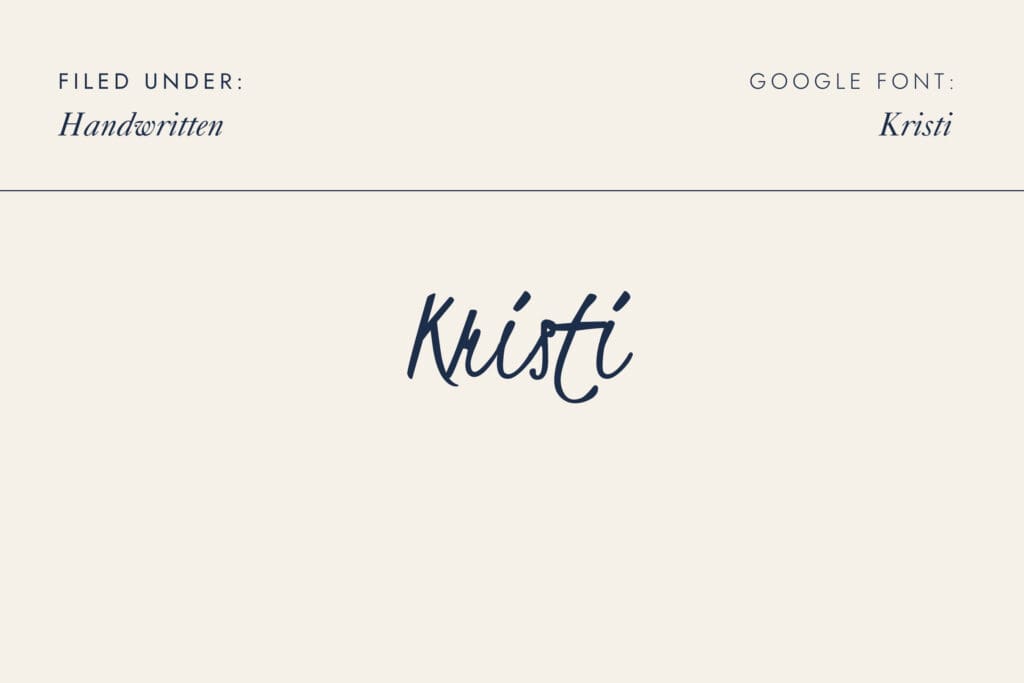
Kristi | Casual | Loopy
A loose, loopy handwritten Google Font that mimics genuine pen-to-paper writing. Kristi’s organic letterforms and relaxed rhythm make it a go-to for personal branding, greeting card designs, and anything that needs a spontaneous, handcrafted feel.
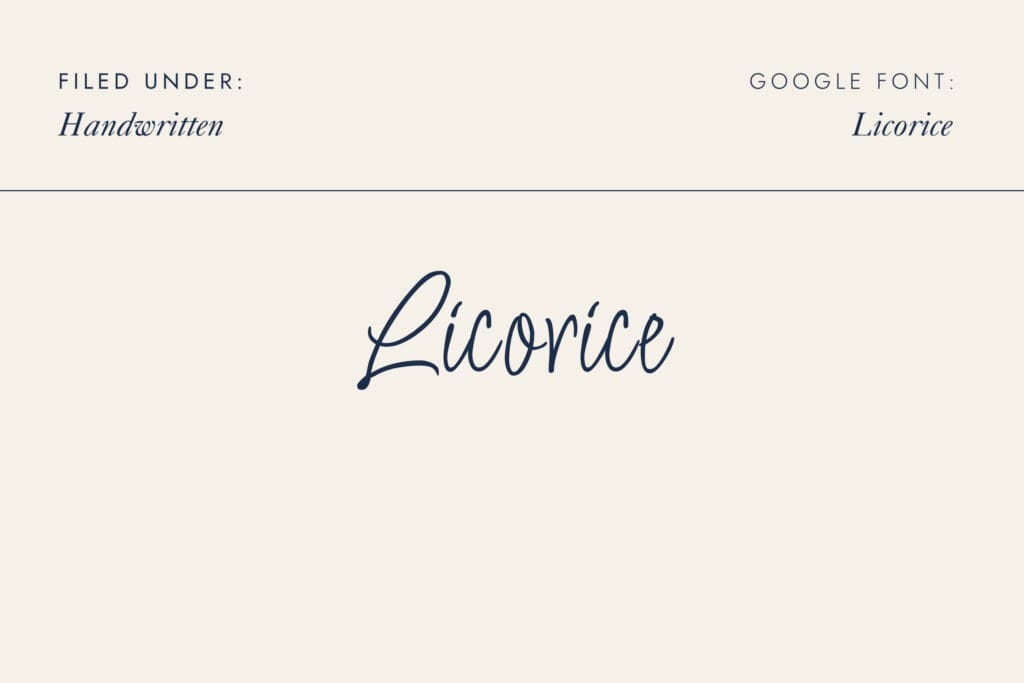
Licorice | Elegant | Narrow
Licorice is a tall, elegant handwritten Google Font with a confident, slightly formal energy. Its compressed letterforms and smooth strokes work beautifully for wedding invitations, boutique logos, and editorial headers.
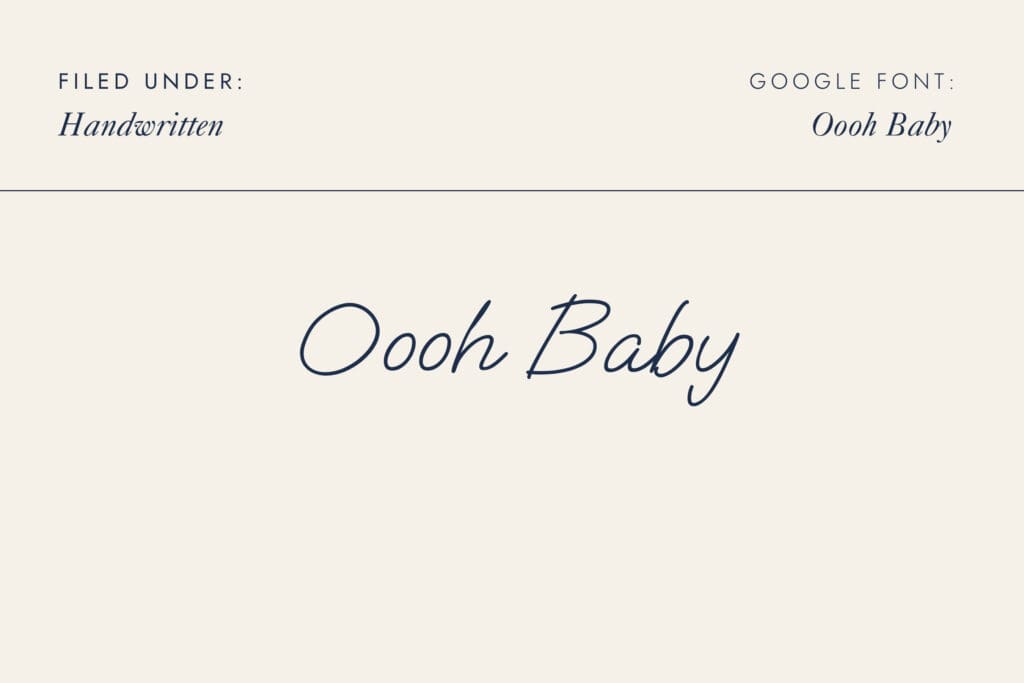
Oooh Baby | Playful | Flowing
Oooh Baby is a flowing, playful handwritten Google Font with a sweet, rounded character. Its bouncy baseline and cheerful energy make it ideal for lifestyle brands, children’s content, and social media graphics.
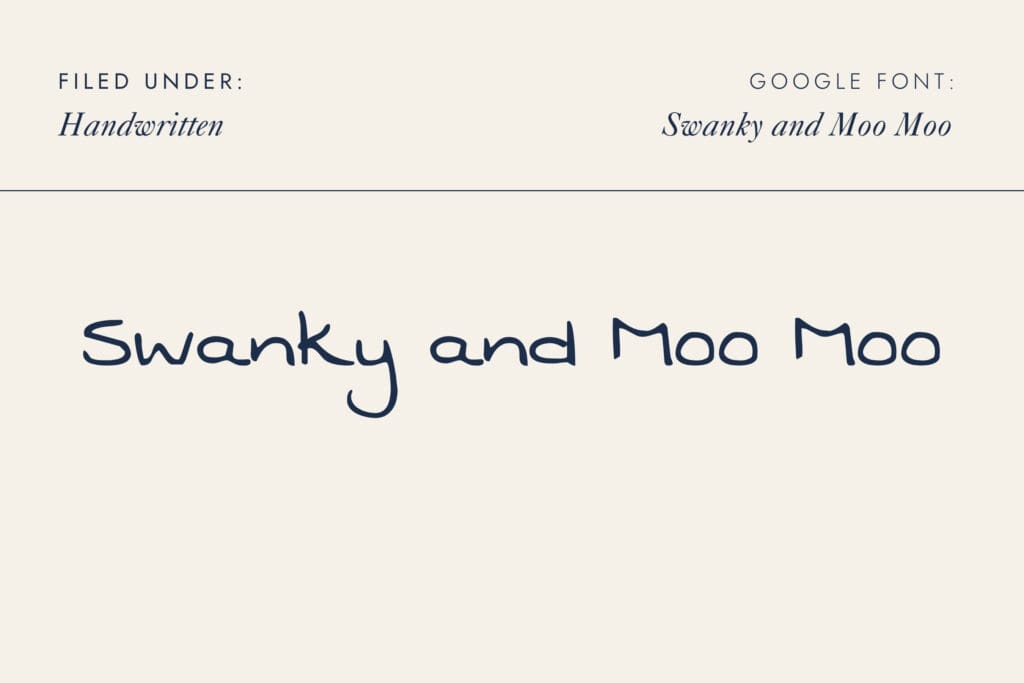
Swanky and Moo Moo | Retro | Bold
With its chunky strokes and retro personality, Swanky and Moo Moo is a bold handwritten Google Font that commands attention. Great for fun branding, product packaging, or any design that needs a vintage, hand-lettered feel with plenty of character.
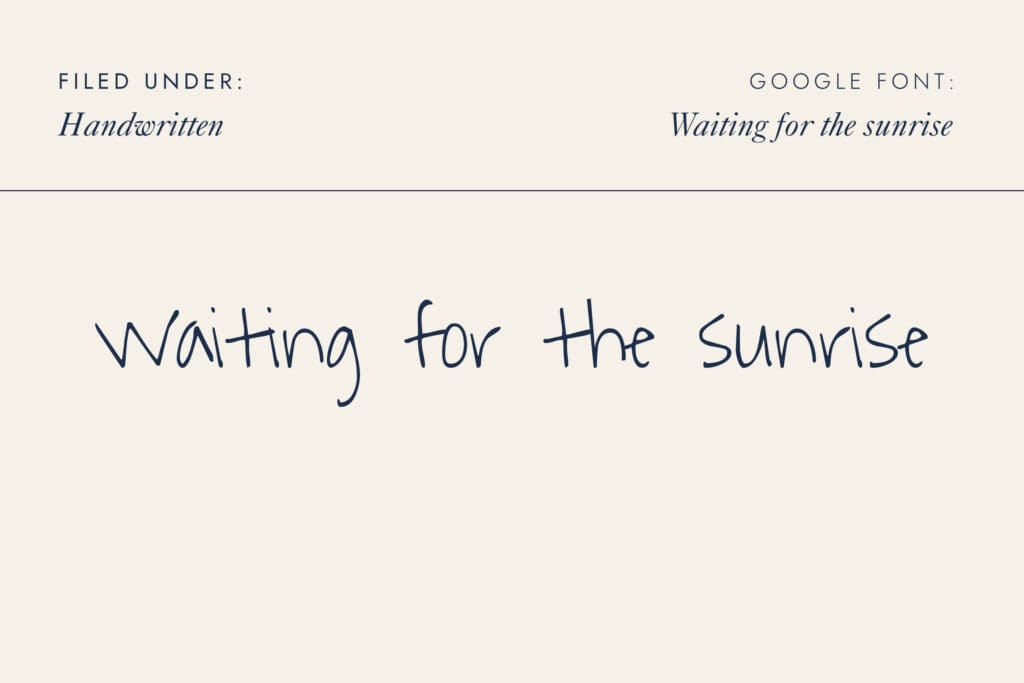
Waiting for the Sunrise | Airy | Romantic
Waiting for the Sunrise is a delicate, airy handwritten Google Font that feels like a note written by morning light. Its thin strokes and gentle slant make it perfect for romantic quotes, watercolor-style branding, and dreamy editorial designs.
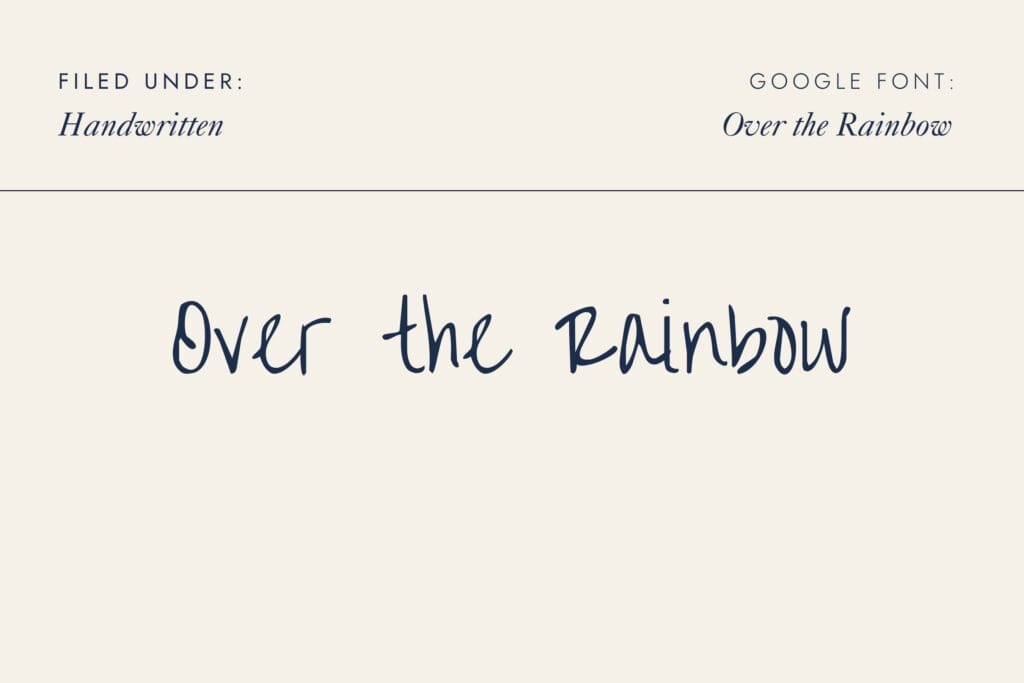
Over the Rainbow | Whimsical | Round
Over the Rainbow is a whimsical, round handwritten Google Font with a warm, storybook quality. Its open letterforms and friendly rhythm are a natural fit for children’s brands, illustrated content, and any design that wants to feel imaginative and inviting.
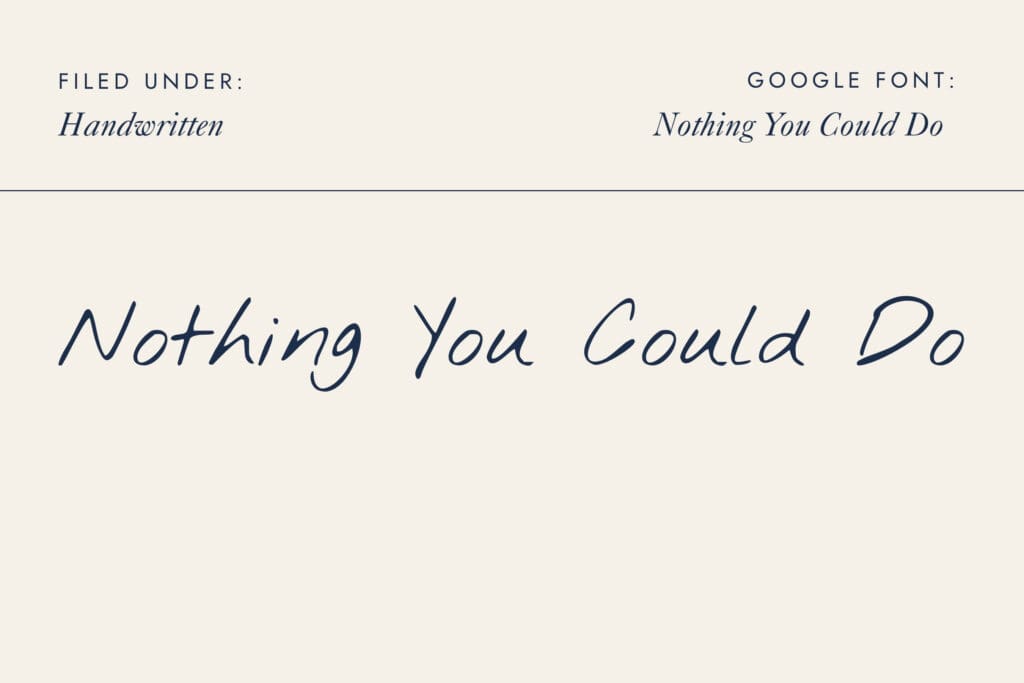
Nothing you Could Do | Tall | Casual
Nothing You Could Do is a tall, casual handwritten Google Font that strikes a nice balance between legibility and personality. Its slightly angular letterforms give it an artsy, journaling quality that pairs well with editorial layouts and creative portfolios.
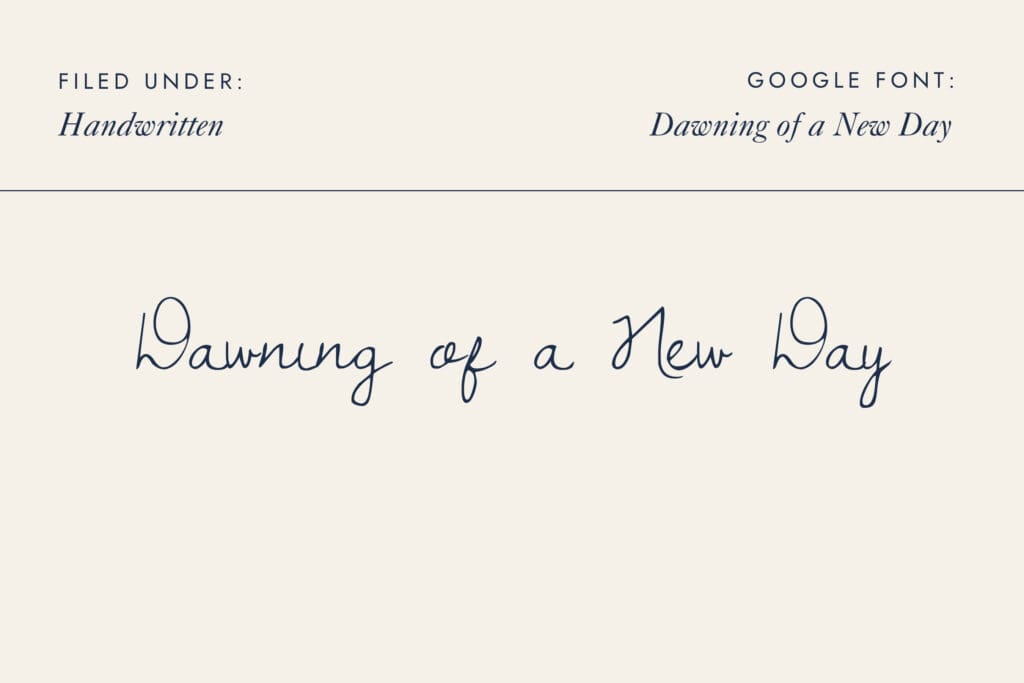
Dawning of a New Day | Refined | Flowing
Dawning of a New Day is a refined, flowing handwritten Google Font with a gentle, pen-like quality. It feels unhurried and thoughtful, making it a strong choice for wellness brands, journal aesthetics, and designs that want to feel personal without being too casual.
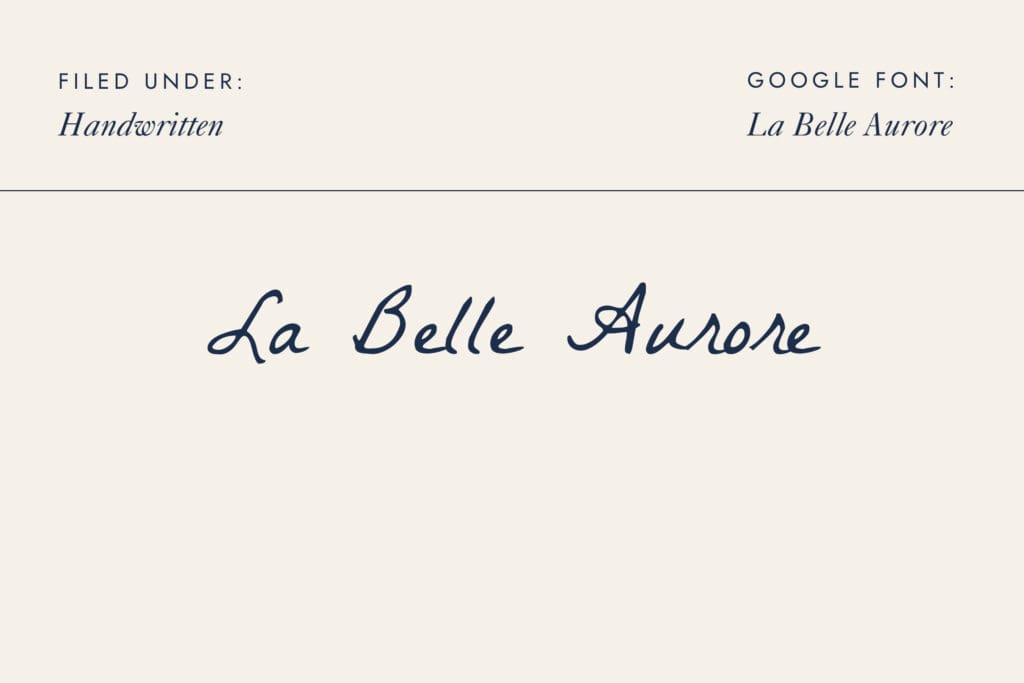
La Belle Aurore | Classic | Script
La Belle Aurore is a classic, slightly formal handwritten Google Font with old-world charm. Its calligraphic rhythm and vintage feel make it a natural fit for wedding stationery, French-inspired branding, and luxury editorial design.
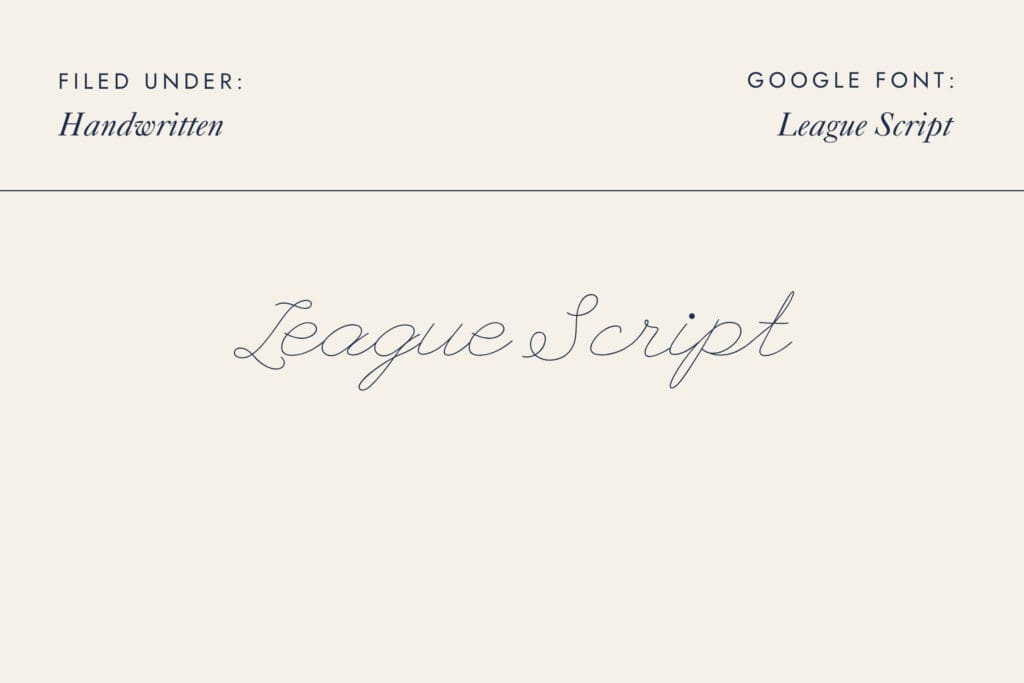
League Script | Ornate | Scripted
League Script is an ornate, scripted handwritten Google Font with a decorative, vintage sensibility. Its elaborate loops and connected letterforms work beautifully as a display font for formal invitations, heritage branding, and logo typography.
Cedarville Cursive | Clean | Legible
Cedarville Cursive is a clean, legible handwritten Google Font that reads like tidy schoolbook cursive. Its consistent letterforms and balanced spacing make it one of the more practical handwriting fonts for longer text, signage, and designs that need warmth without sacrificing readability.